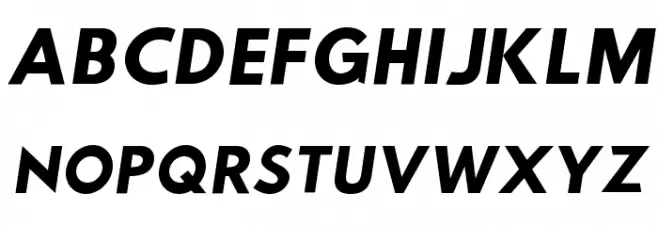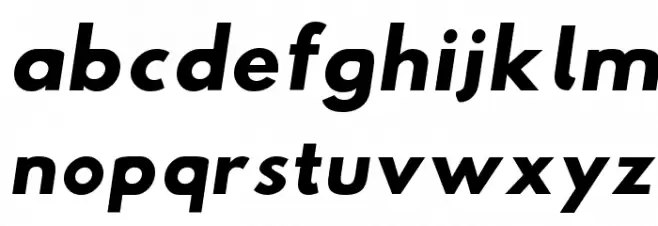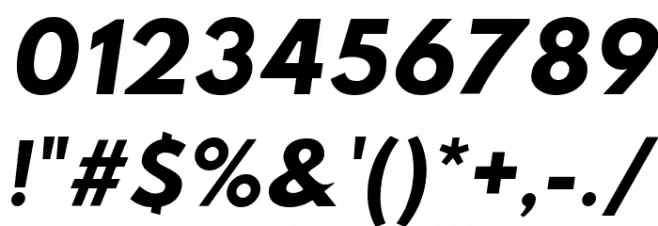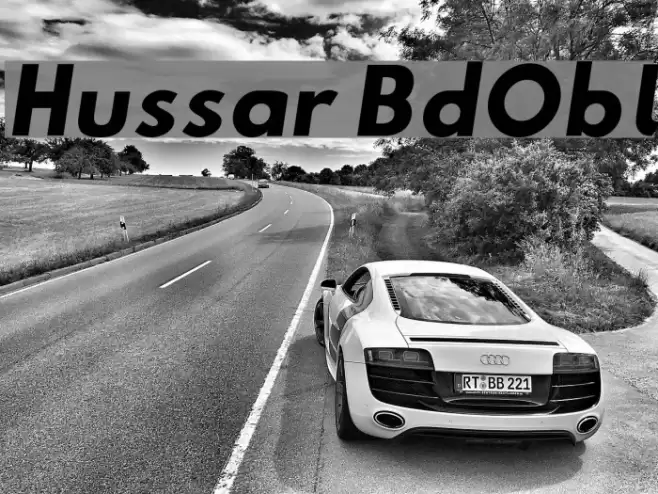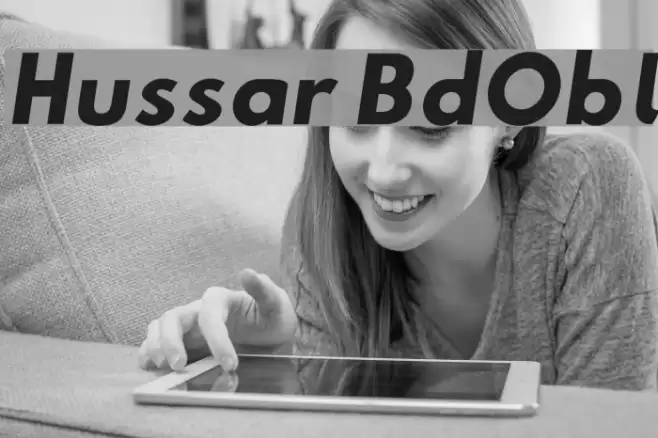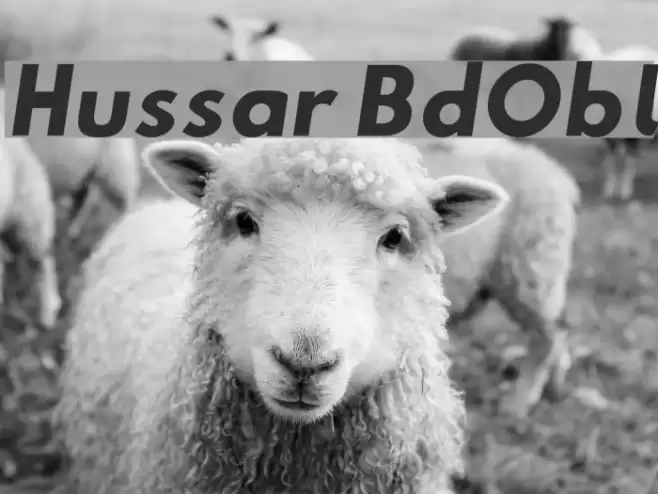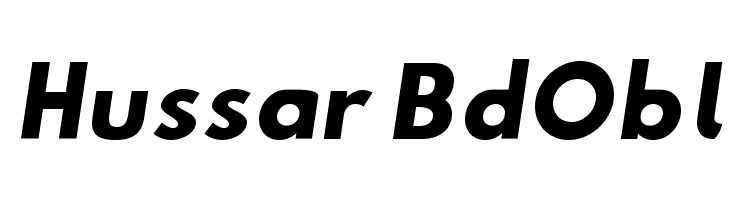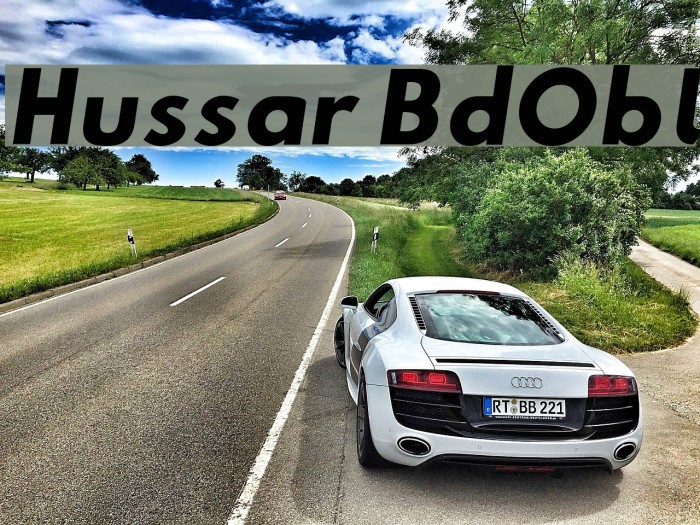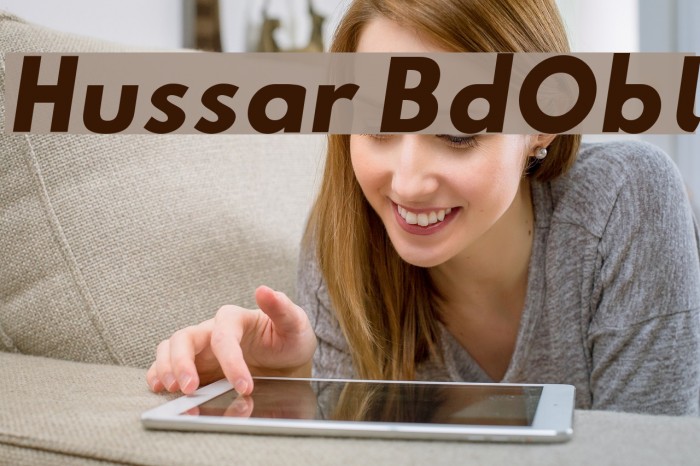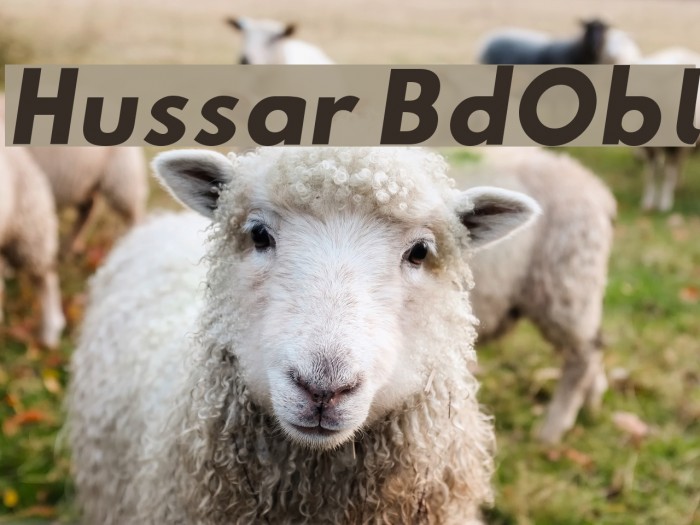
Hussar BdObl
This font features a bold and dynamic style with a noticeable slant, giving it an oblique appearance. The characters are well-defined with a strong presence, making it suitable for impactful designs. The uppercase letters are slightly more condensed compared to the lowercase, which maintains a consistent width. The numerals are bold and clear, ensuring readability. Special characters are designed to match the overall boldness, providing a cohesive look across all glyphs. This font's strong and assertive style makes it ideal for attention-grabbing headlines and branding materials.
A bold, oblique font with strong, dynamic characters.
- Proposed Projects: Ideal for branding, headlines, posters, and advertising materials where a strong visual impact is desired.
- Use Case: Headlines, Logos, Posters